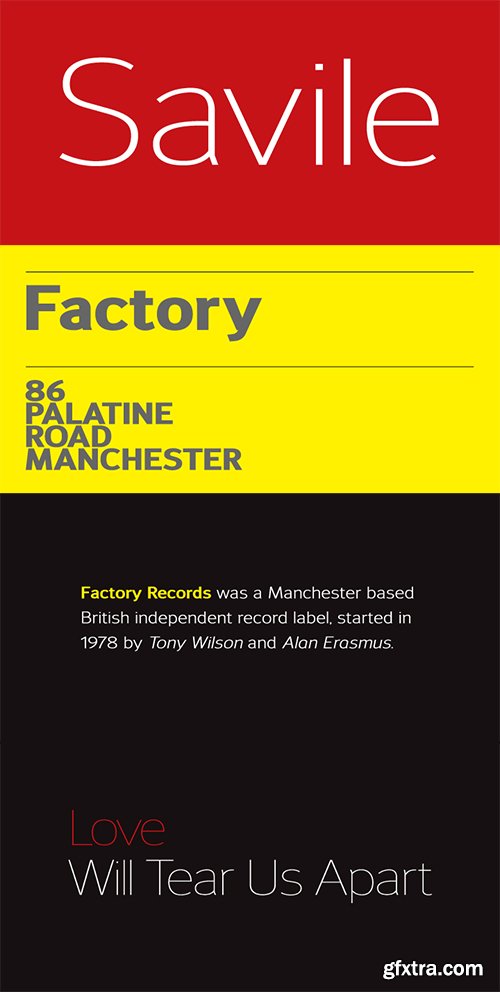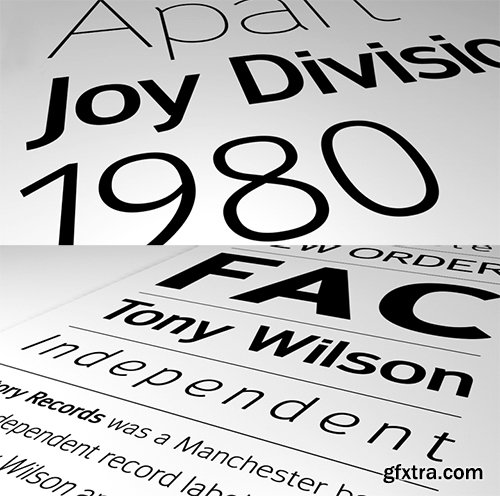
Savile Font Family
- A modern san serif typeface with a humanistic influence. The intention was to create a clean, functional design that would also have an elegant appearance. Careful attention has been paid to proportions and purity of form to help improve readability across text layouts. Details include 8 weights with italics, 540 characters with old style and tabular numerals, stylistic alternatives, manually edited kerning and Opentype features.